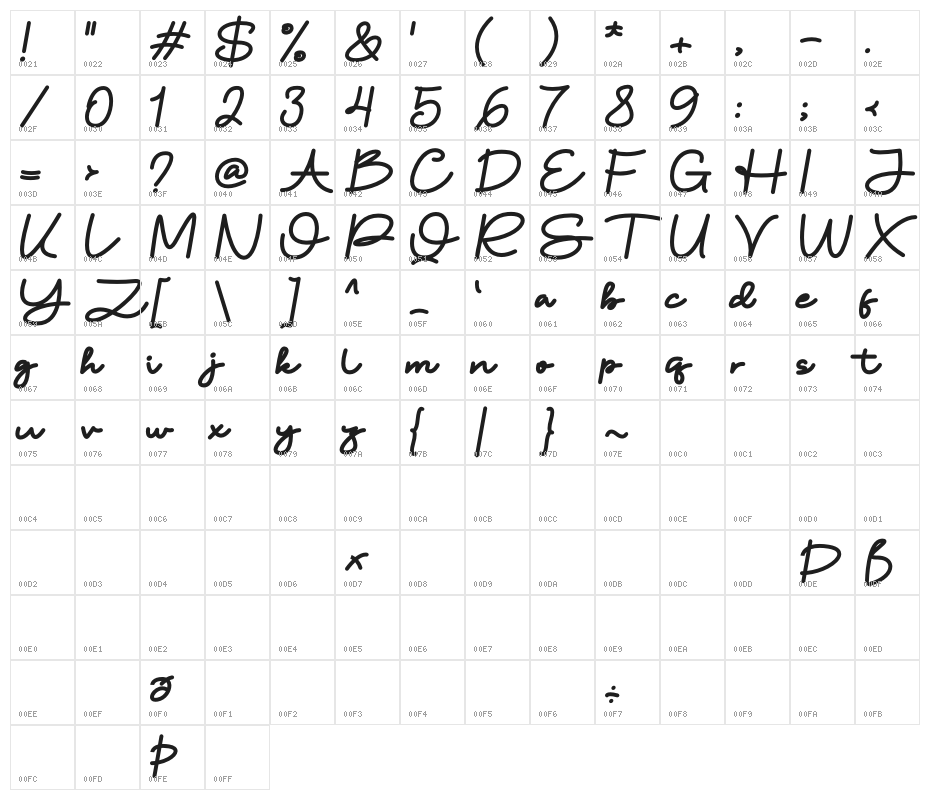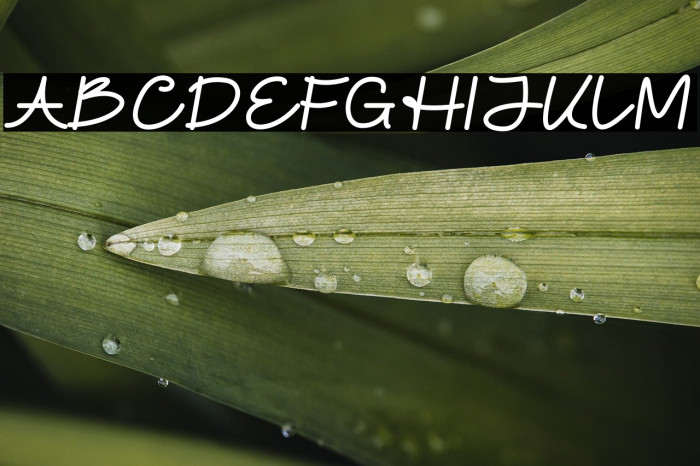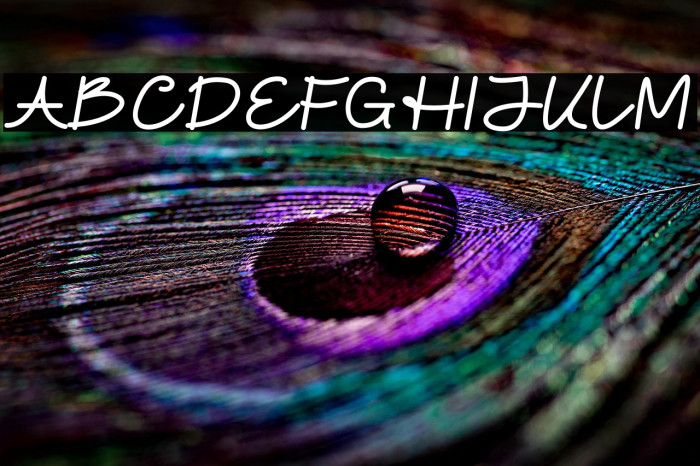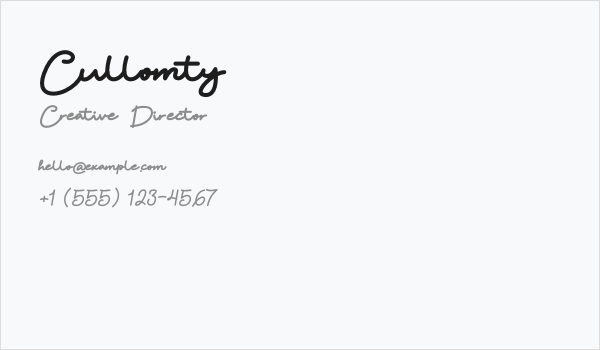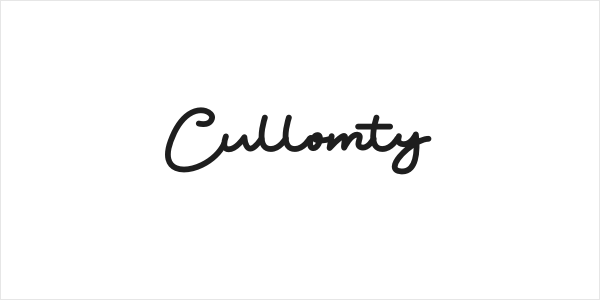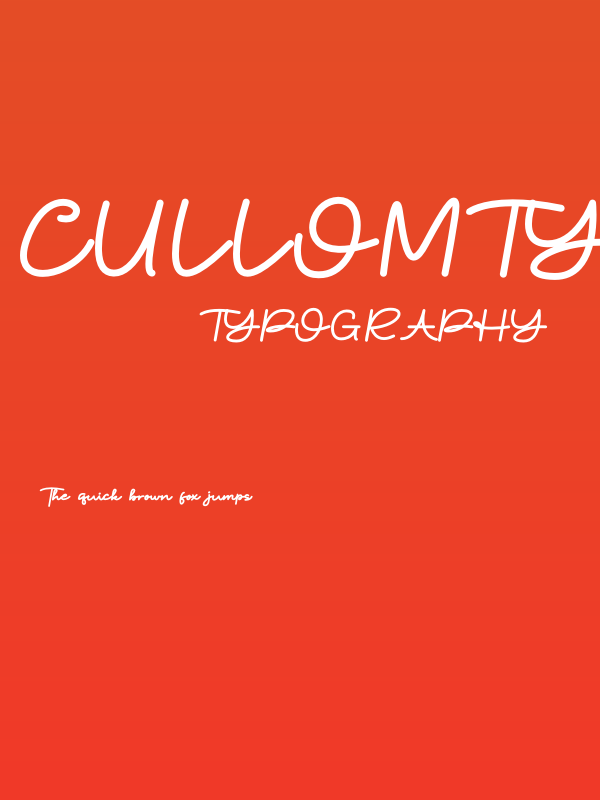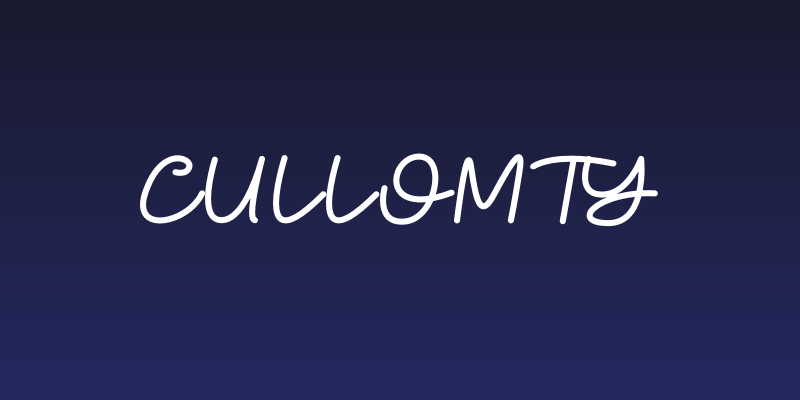
Cullomty Font
Cullomty Description
This font features a playful and energetic script style, characterized by its smooth, flowing lines and slightly irregular strokes that give it a handwritten appearance. The uppercase letters are elegantly connected, while the lowercase letters exhibit a more casual and relaxed form. The numbers and special characters maintain the same lively and dynamic feel, making the font versatile for various creative applications. Its overall design is both approachable and stylish, suitable for projects that require a personal touch.
| Use Case | Logos, Headlines, Creative projects |
| Proposed Projects | Ideal for greeting cards, invitations, personal branding, and creative posters. |